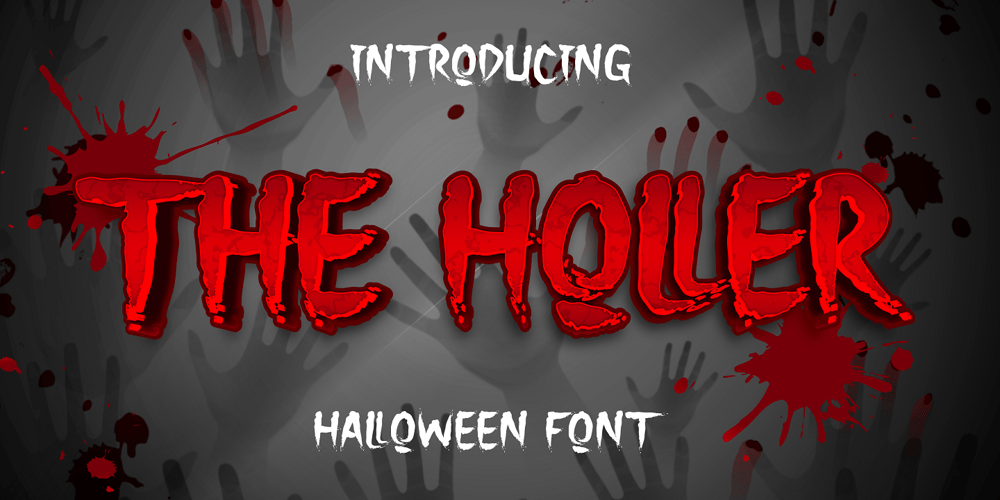
The Holler
The Holler font
The Holler Font Family was designed by Tio Yulianto and published by Javatypestd. The Holler contains 1 styles and family package options. Introducing The Holler Font with a scary Halloween theme. Masterfully designed to become a true favorite, this font has the potential to bring each of your creative ideas to the highest levelTo access the alternate glyphs, you need a program that supports OpenType features such as Adobe Illustrator CS, Adobe Photoshop CC, Adobe Indesign, and Corel Draw.What’s Included :- Web Font- Standard glyphs- Ligature and Alternate- Works on PC & Mac- Simple installations- Accessible in Adobe Illustrator, Adobe Photoshop, Adobe InDesign, even work on Microsoft Word.- PUA Encoded Characters – Fully accessible without additional design software.- Fonts include multilingual supportThank you for your purchase!Hope you enjoy our font!